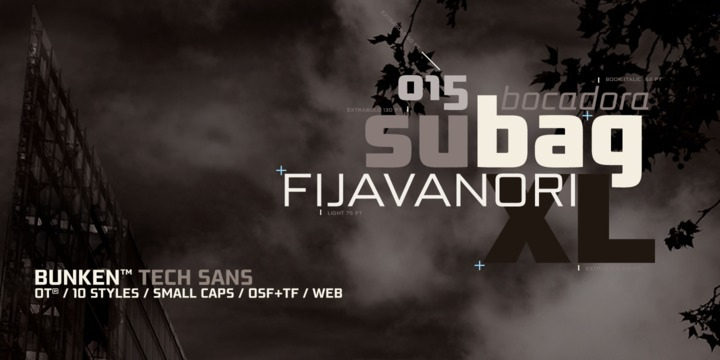
Bunken Tech Sans Font
Bunken Tech Sans Font is perfectly suited for technology startup branding, digital app interfaces, software company logos, tech conference materials, innovative product packaging, cybersecurity firm identities, AI research presentations, modern web design, and forward-thinking corporate communications.
What makes Bunken Tech Sans Font so exciting is its perfect fusion of technical precision and contemporary sophistication that captures the essence of modern technology innovation while maintaining exceptional functionality across all digital platforms. This outstanding typeface embodies the spirit of technological advancement with its clean geometric forms and carefully balanced proportions that convey both reliability and cutting-edge innovation. The font's distinctive character shapes and technical clarity create an immediate sense of digital expertise and professional competence that resonates with technology professionals and innovation-focused audiences who value precision and forward-thinking design. Bunken Tech Sans Font stands out through its ability to convey technological authority, digital innovation, and professional excellence, making it perfect for projects that need to establish credibility in competitive tech markets while communicating effectively with audiences who appreciate sophisticated technology solutions.
The Bunken Tech Sans Font family includes Thin, Light, Regular, Medium, Bold, and Black weights, each maintaining the font's distinctive technological character while providing comprehensive design flexibility for various digital applications. The family also features italic variations and extended character sets that enhance the font's versatility and provide complete solutions for sophisticated technology branding systems requiring consistent performance.
The technical excellence of Bunken Tech Sans Font includes comprehensive character sets supporting multiple languages, advanced OpenType features, and precision-engineered spacing optimized specifically for digital screens and modern technology applications. The font maintains exceptional legibility at all sizes while providing the flexibility needed for complex technology branding systems that require seamless integration across diverse digital platforms.
Whether you're developing technology company identities, designing software interfaces, creating digital marketing materials, or building comprehensive tech brands that demand contemporary sophistication and technical reliability, Bunken Tech Sans Font delivers the perfect combination of technological innovation and professional functionality that ensures your projects remain competitive and visually compelling in today's rapidly evolving technology landscape.